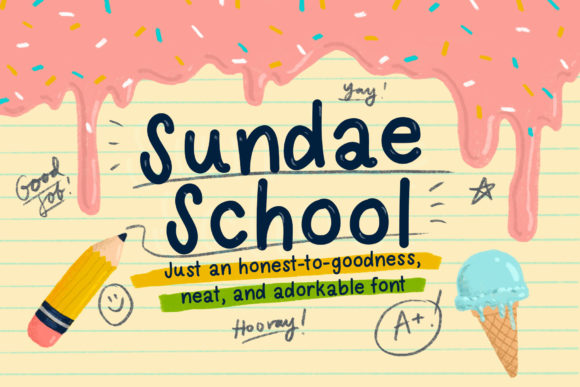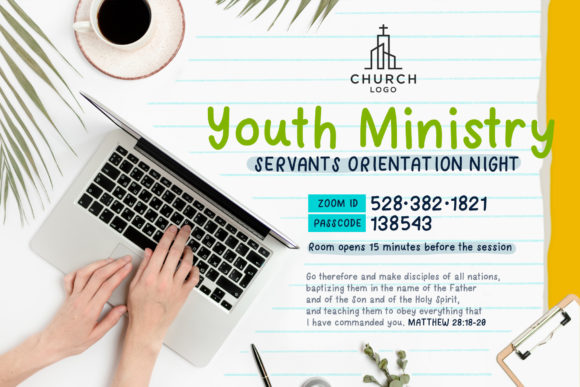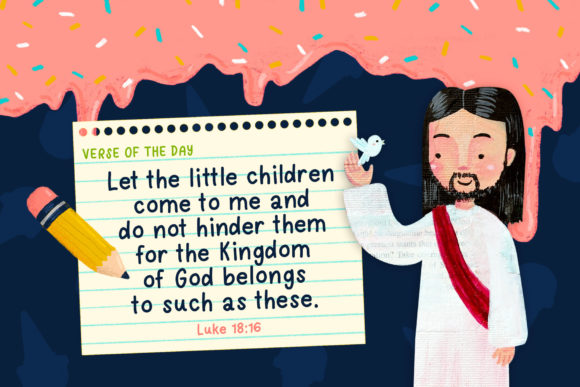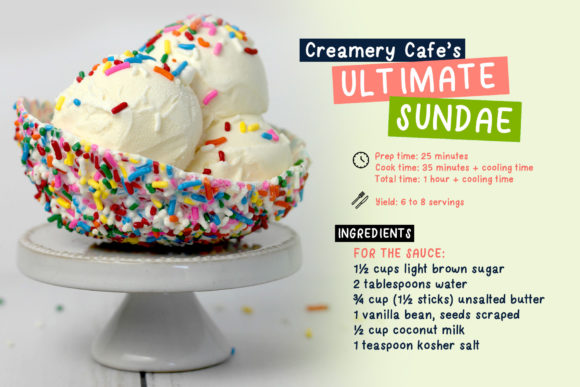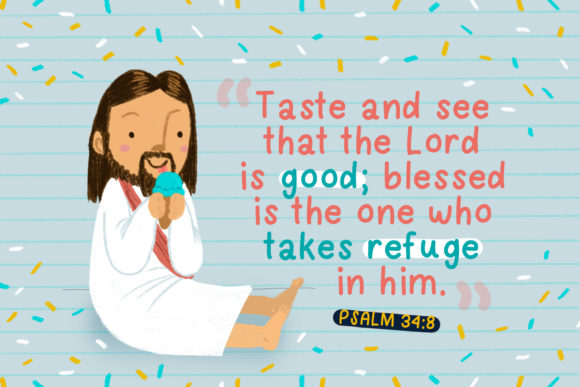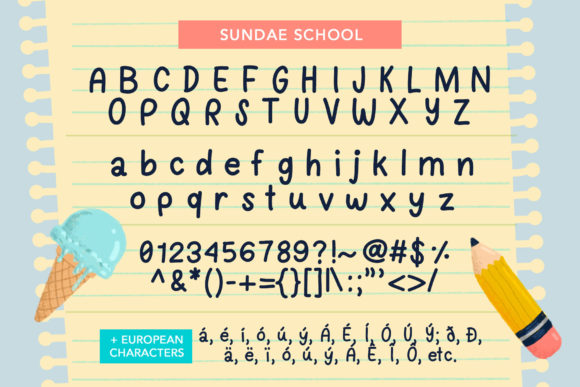
Sundae School Font
About Sundae School Font
Sundae School is a handwritten font that can be used for all chalkboard quotes or teaching material! Its authentic look and feel will add a personal and realistic feel to your designs.